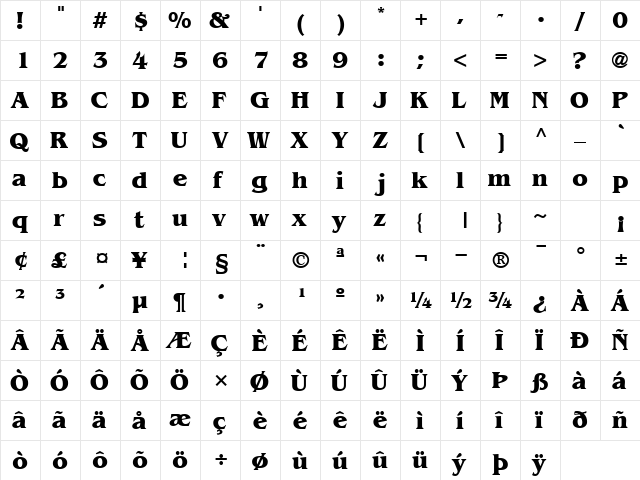
ExpressDecoSSK Bold
Design Context for ExpressDecoSSK Typeface
ExpressDecoSSK is a composed and adaptable typeface that performs quietly and consistently across a wide range of design contexts. The heavy weight commands attention and anchors typographic hierarchies.